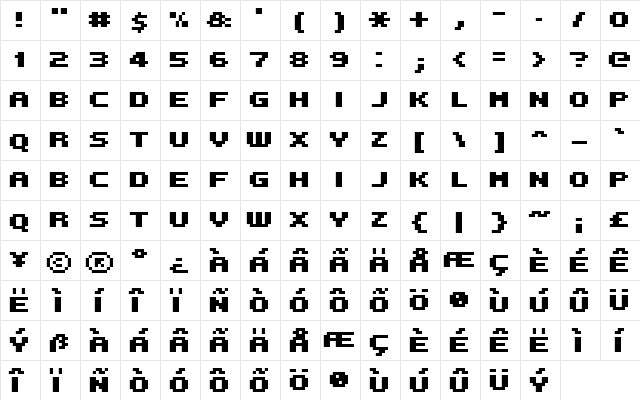
FFF Intelligent Condensed Regular
Design Context for FFF Intelligent Condensed Typeface
FFF Intelligent Condensed takes a measured approach to typography — its balanced proportions and neutral character make it a reliable workhorse for both digital and print work. Its narrow stance lets it pack a punch even in space-constrained designs.